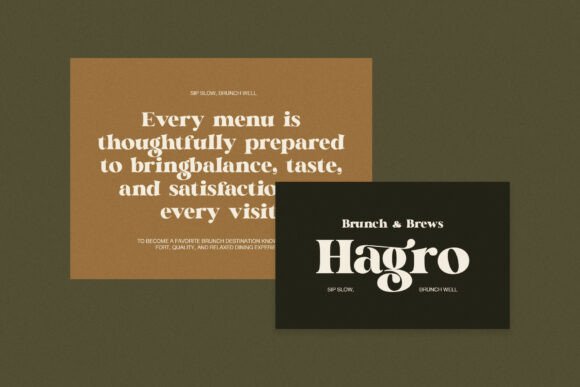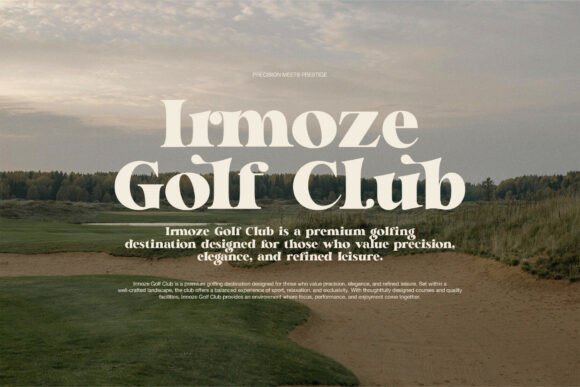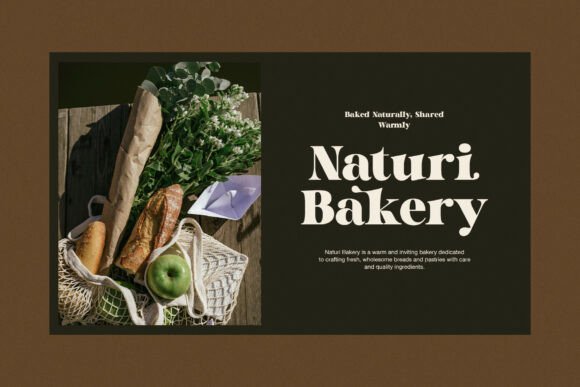
Introduction to Magil Font
Imagine you’re working on a creative project, and you’re searching for the perfect font to convey confidence and warmth. You browse through design resources, scrolling through endless options, but none seem to capture the essence you’re looking for. That’s when you stumble upon the Magil Font – an elegant modern serif font that feels both stylish and composed.
As a designer, you know that the right font can make or break a design. That’s why it’s valuable to have a high-quality, versatile font like Magil Font in your arsenal. With its clean design and balanced contrast, this font is perfect for designers who want to create a timeless and expressive look for their projects. And the best part? Magil Font is available for a free download, making it an accessible design resource for creatives of all levels.
Key Features of Magil Font
• Comes in 5 font styles: Regular, Italic, Bold, Bold Italic, and Outline, making it a versatile design resource.
Honest Review: Magil Font
I recently came across the Magil Font, and I must say it’s been a game-changer for my creative project. As a designer, I’m always on the lookout for high-quality design resources that can elevate my work.
Here are some things that work well with the Magil Font:
• Its sleek and modern design makes it perfect for a variety of creative projects.
• The font is highly customizable, allowing me to adjust the transparency of the background to suit my needs.
• The font may not be suitable for projects that require a more traditional or vintage look.
• Some users may find the font to be a bit too minimalist for their taste.
Overall, I’m really impressed with the Magil Font. It’s a high-quality design resource that’s perfect for any creative project. With its transparent background and modern design, it’s a great addition to any designer’s toolkit.
How to Use Magil Font
The Magil Font is a high-quality, free design resource ideal for creative projects requiring a unique and stylish touch. Its transparent background makes it perfect for overlaying on images or using as a standalone element.
Tips for Getting the Most Out of Magil Font
To get the most out of the Magil Font, experiment with different font sizes, colors, and layering techniques. Combine it with other design elements to create a unique and eye-catching visual identity.
The Magil Font is ideal for a variety of creative projects, including:
• Branding and logos
• Social media graphics
• Presentations and slides
• Typographic designs
Alternatives to Magil Font
The Great Vibes Font is a high-quality, elegant script font perfect for creative projects requiring a touch of sophistication. It features a transparent background, making it ideal for use with images or videos. Great Vibes Font is a great alternative to Magil Font when you need a more refined and luxurious look.
The Dancing Script Font is a playful, cursive font suitable for design resources that require a fun and lively atmosphere. It’s a great option for social media graphics, posters, or other creative projects where you want to convey energy and enthusiasm. Dancing Script Font is similar to Magil Font in its fluidity, but it has a more carefree feel.
The Pacifico Font is a beautiful, modern script font that works well for design projects requiring a sense of calmness and serenity. Its high-quality design and transparent background make it a great choice for use with images or videos. Pacifico Font is an alternative to Magil Font when you need a more relaxed and peaceful look.